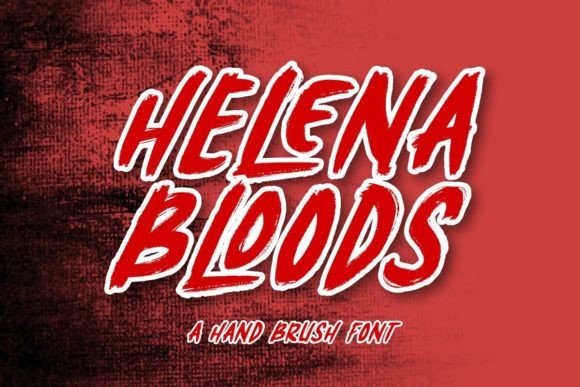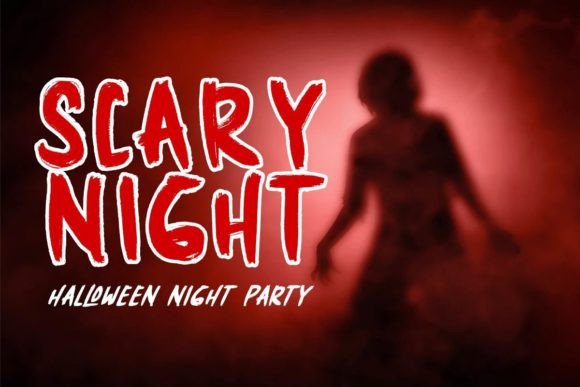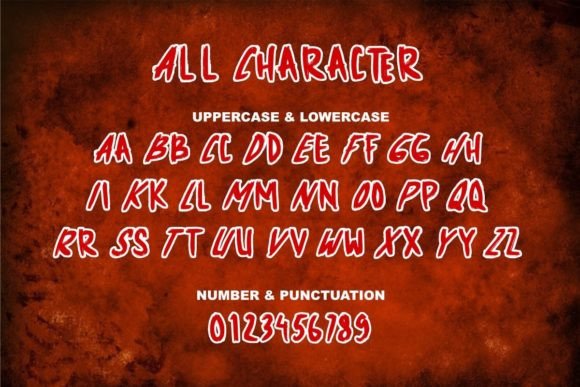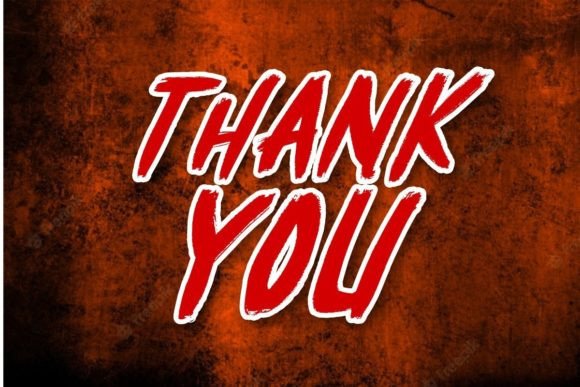
Helena Bloods Font
About the Helena Bloods Font
The wait is over! The incredible Helena Bloods Font is now available for your design toolkit. Helena Bloods is an impactful and spooky typeface. The intense brush stroke design makes it perfect for your Halloween crafts and projects.
Its bold, slightly aggressive strokes make it ideal for headlines, posters, and short impactful branding elements where a strong, spooky aesthetic is desired. Avoid using it for body text or long paragraphs; the heavy weight and uneven strokes hinder readability in extended use. It’s not suitable for UI applications either.
Helena Bloods’ core personality is dramatic and edgy. Brands seeking to project a mysterious, gothic, or Halloween-themed image will find it highly effective.
Consider pairing it with a clean sans-serif like Montserrat for contrast, or a more traditional serif such as Garamond for a classic, yet spooky combination. A delicate script font could add an unexpected layer of elegance if used sparingly.
Helena Bloods Font Usage Examples
Helena Bloods Font Example